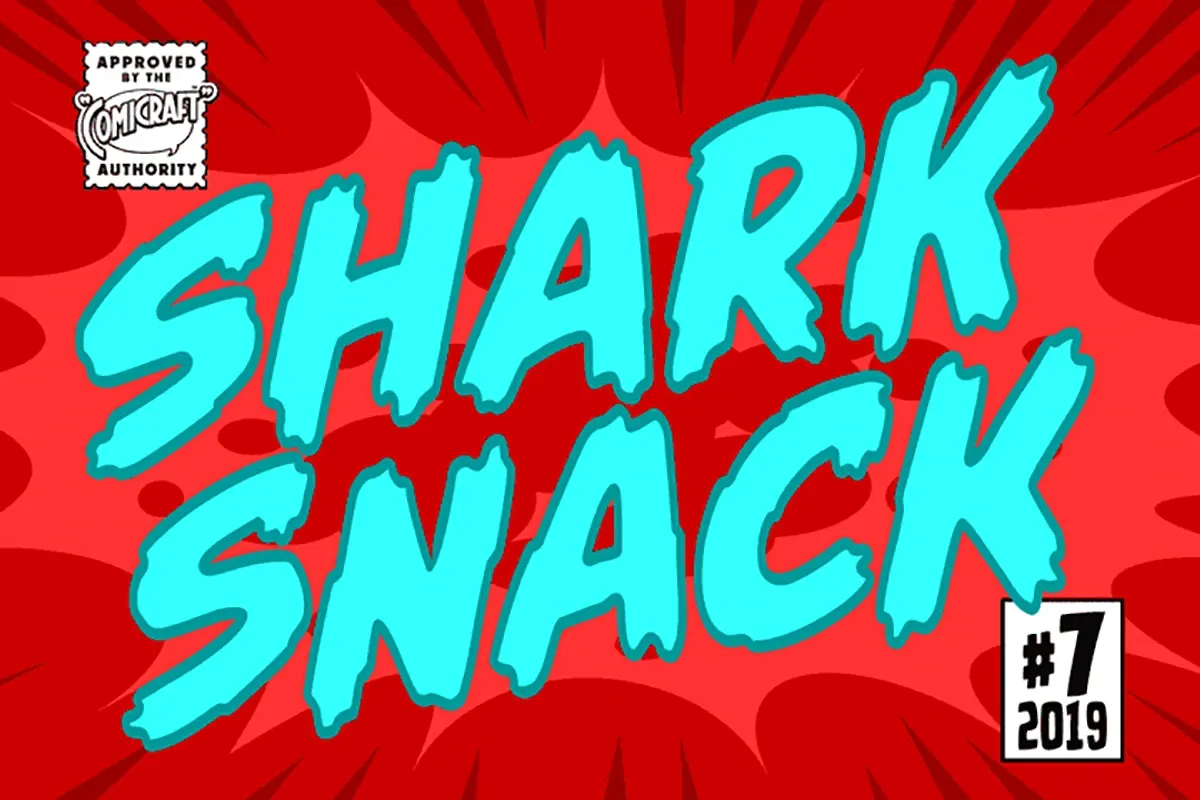
Shark Snack Font Free Download is a bold, playful typeface with a quirky, hand-drawn feel that makes it perfect for creative and fun projects. Its strong lines and unique character design give it a distinctive, eye-catching look that’s ideal for logos, posters, branding, social media graphics, and any design that needs a bit of personality.
The playful nature of Shark Snack makes it especially suitable for children's products, casual branding, or any design that needs a fun, energetic vibe. Its bold style ensures your message will stand out and be memorable.